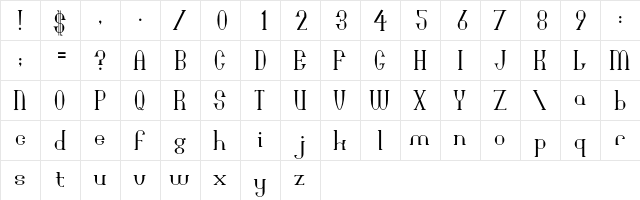
Bridgework Regular
Design Context for Bridgework Typeface
Bridgework is a composed and adaptable typeface that performs quietly and consistently across a wide range of design contexts.